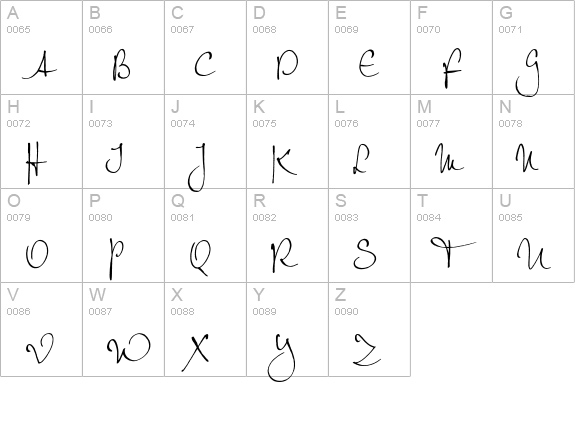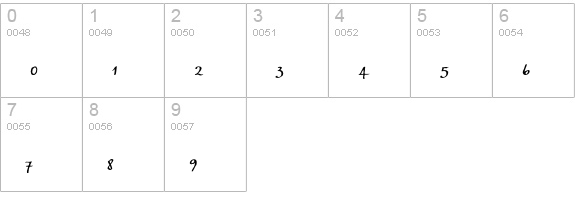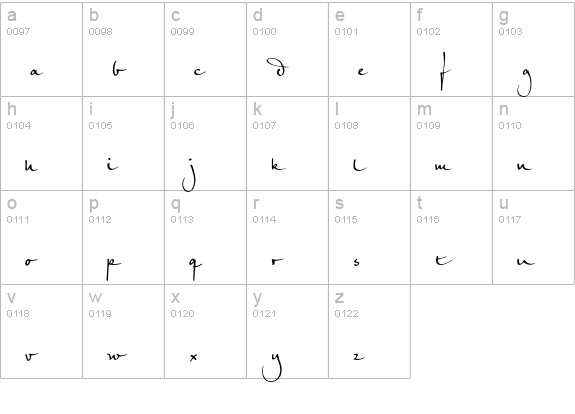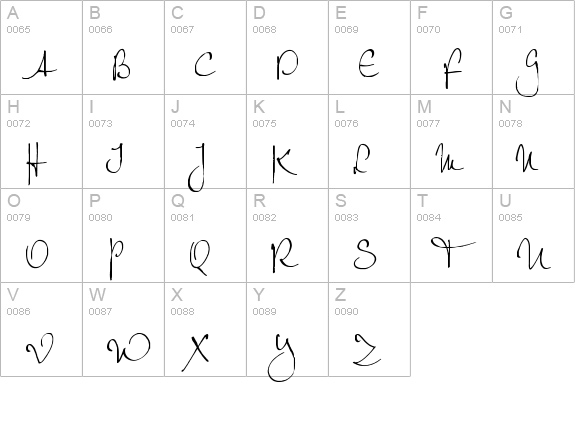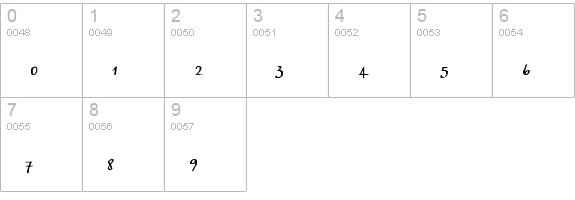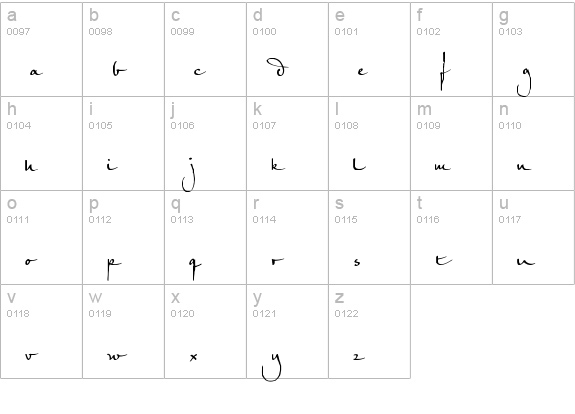
PetrasScriptEF-Regular Font Details
PetrasScriptEF-Regular is the standard, neutral variant in the PetrasScriptEF typeface family \xE2\x80\x94 well suited to general body text, paragraphs, and standard typographic work.
PetrasScriptEF-Regular is a stunningly elegant font that effortlessly captures the essence of refined handwriting. Its flowing curves and delicate strokes make it perfect for adding a touch of sophistication and grace to any design project. With its versatile nature, this font can be used for a variety of purposes, such as invitations, greeting cards, branding materials, and more. One of the most appealing aspects of PetrasScriptEF-Regular is that it is available for free. That's right, you can easily download this font at FontsMarket.com without spending a single penny. This makes it an ideal choice for designers, students, and anyone else who wants to add a touch of elegance to their creations without breaking the bank. Whether you are designing a wedding invitation, creating a logo for a high-end brand, or simply want to add a touch of sophistication to your personal projects, PetrasScriptEF-Regular is the perfect choice. Its refined and timeless appeal will leave a lasting impression on anyone who encounters it. So why wait? Head over to FontsMarket.com and download PetrasScriptEF-Regular for free today. Start adding a touch of elegance to your designs and let this font elevate your creations to new heights.